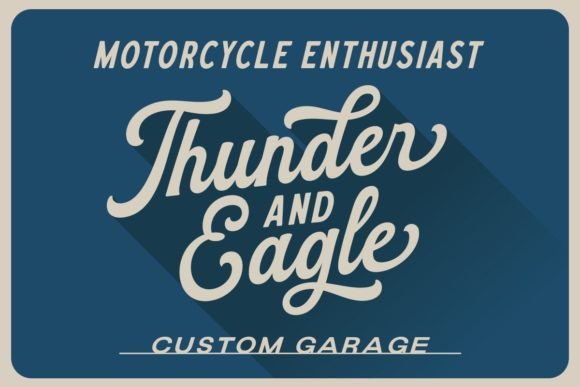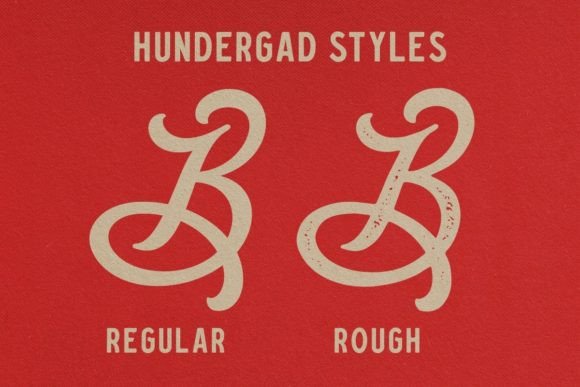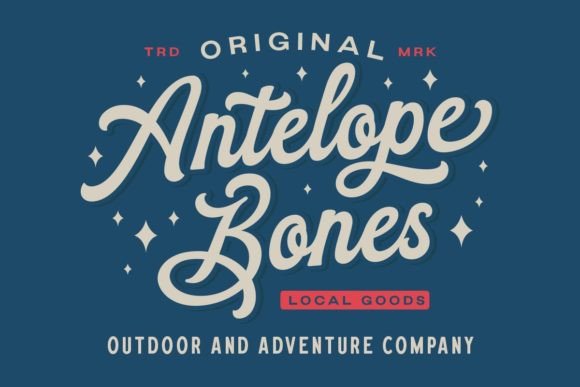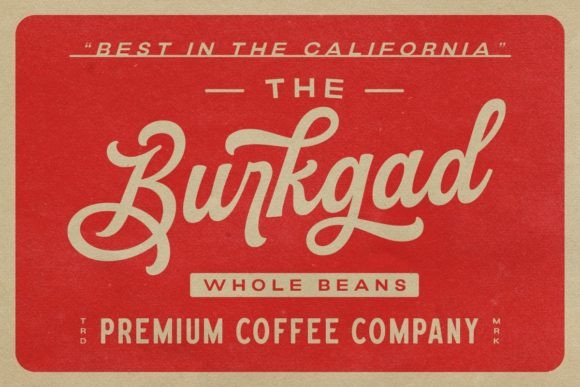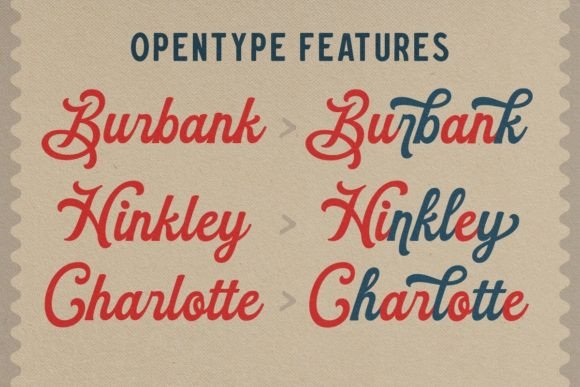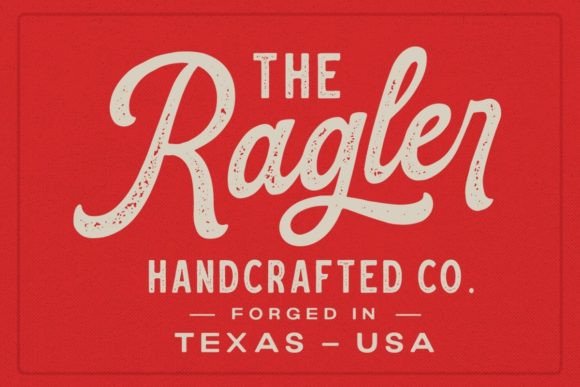
Introduction to Hundergad Font
Have you ever stumbled upon an old book or a vintage poster and been captivated by the unique, elegant script that seemed to transport you to another era? That’s the magic of the Hundergad Font – a high-quality, script font that evokes a sense of nostalgia and sophistication. As a designer, you know how important it is to have the right tools at your disposal to bring your creative project to life.
The Hundergad Font is a valuable design resource that can elevate any project, from logos and invitations to magazines and novels. With its transparent background and versatile style, this font is perfect for designers who want to add a touch of elegance and refinement to their work. And the best part? It’s available for free download, making it an accessible resource for designers of all levels.
Key Features of Hundergad Font
- High-quality design resource suitable for creative projects, offering a unique and stylish aesthetic.
- Features a transparent background, allowing for seamless integration with other design elements and backgrounds.
- Designed with high resolution in mind, ensuring crisp and clear text rendering even at larger sizes.
- Perfect for designers and artists working on creative projects, from logos and branding to digital art and graphic design.
Honest Review: Hundergad Font
As a designer, I’m always on the lookout for high-quality design resources to elevate my creative projects. The Hundergad Font caught my attention with its sleek and modern aesthetic. In this review, I’ll share my honest thoughts on this font and whether it’s worth adding to your design arsenal.
- ✨ Beautifully crafted characters with crisp lines and smooth curves
- ✨ Supports a wide range of languages, making it a versatile choice for global projects
- ✨ Includes a transparent background option, allowing for seamless integration with custom backgrounds
- ⚠️ Limited font sizes and styles, which may not be ideal for complex designs
Overall, I’m impressed with the Hundergad Font’s clean design and versatility. While it may not be the most comprehensive font family, its strengths make it a valuable addition to any designer’s toolkit. If you’re working on a creative project that requires a modern, high-quality font, the Hundergad Font is definitely worth considering.
Hundergad Font is ideal for creative projects, such as graphic design, digital art, and typography. Its high-quality design and transparent background make it perfect for backgrounds, overlays, and other design elements.